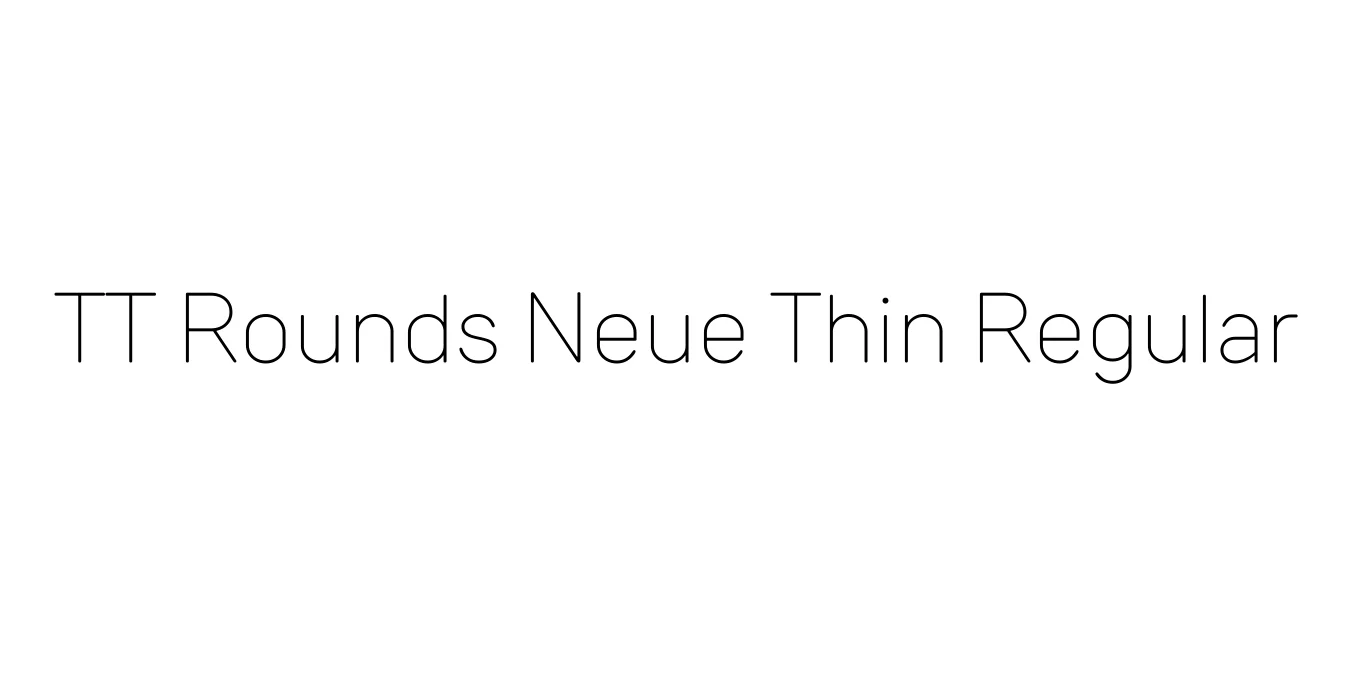
TT Rounds Neue Thin Regular
Designed by TypeType Team
| Category | Rounded Sans Serif |
| Similar Fonts | Proxima Soft, Gotham Rounded, VAG Rounded, Sofia Soft |
TT Rounds Neue Thin Regular represents a comprehensive technical and aesthetic overhaul of the original TT Rounds family by the TypeType foundry. This modern iteration was designed to achieve a more balanced visual weight and improved geometry, ensuring that the rounded terminals feel natural rather than forced. The Thin weight, in particular, showcases the delicate precision of the font, offering a sophisticated and airy aesthetic that remains legible across various digital environments.
Functionally, the font is built with contemporary design requirements in mind, featuring extensive language support and refined kerning. TT Rounds Neue is frequently selected by designers who want to bridge the gap between geometric rigidity and organic softness. It is particularly effective in high-resolution displays where its subtle curves and thin stroke widths can be fully appreciated without losing their structural integrity.
TT Rounds Neue Thin Regular Best Uses
Ideal for minimalist headers and hero sections on modern websites.
Perfect for tech, lifestyle, or wellness brands seeking a friendly yet professional identity.
Excellent for soft, approachable UI/UX elements in application design.
Great for large-scale pull quotes and elegant title sequences in digital magazines.